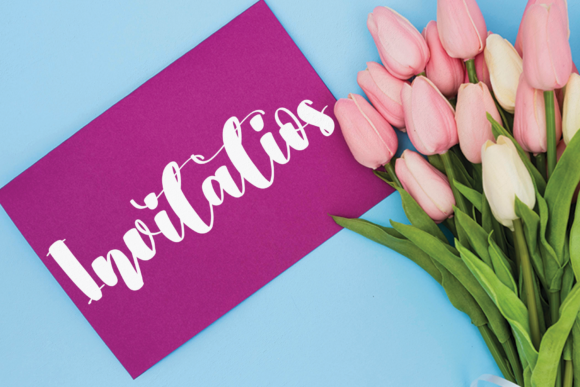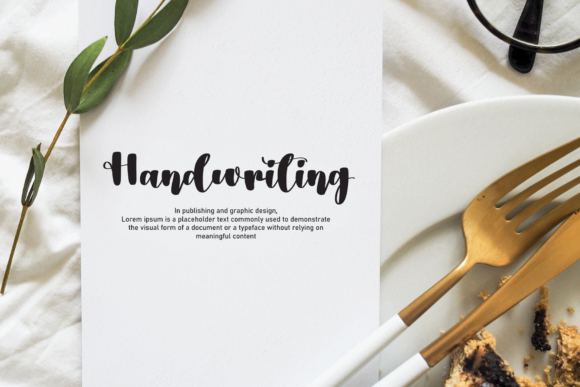
Autography Font
db-ku.com - Script & Handwritten -- Autography is one creative script and handwriting font, perfect for fashion, magazines, invitations, cards, quotes, branding, labels, and many more!